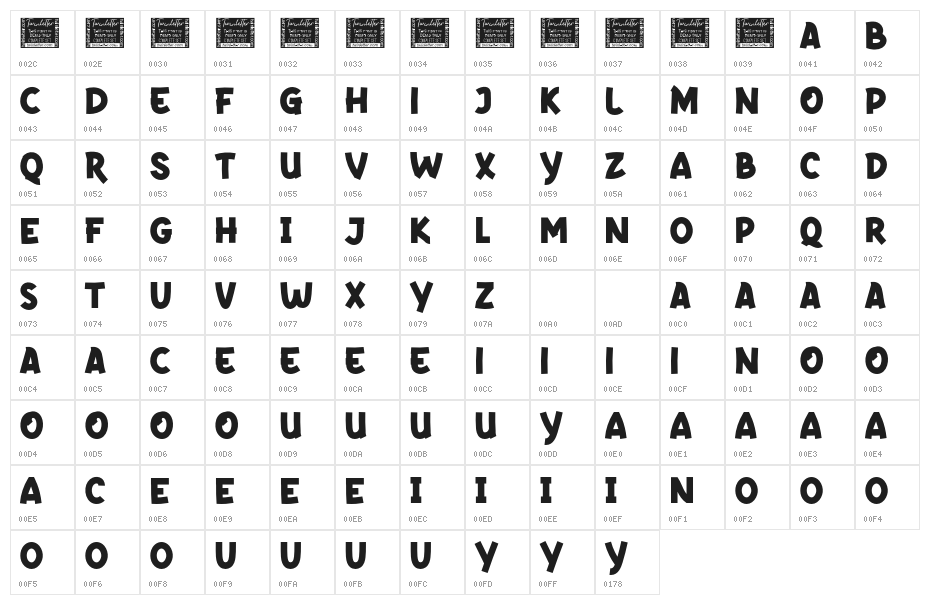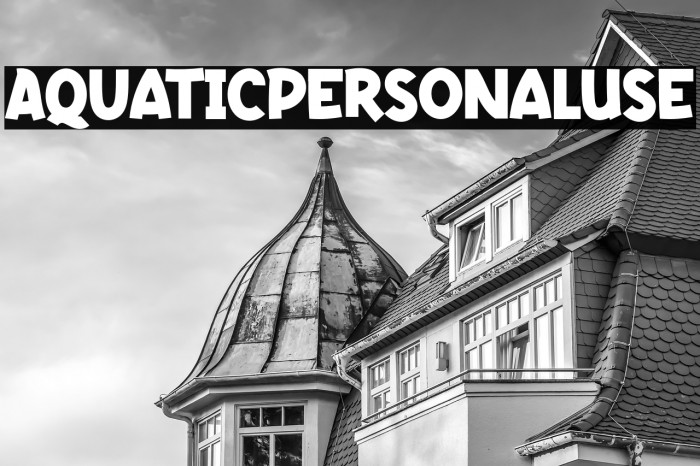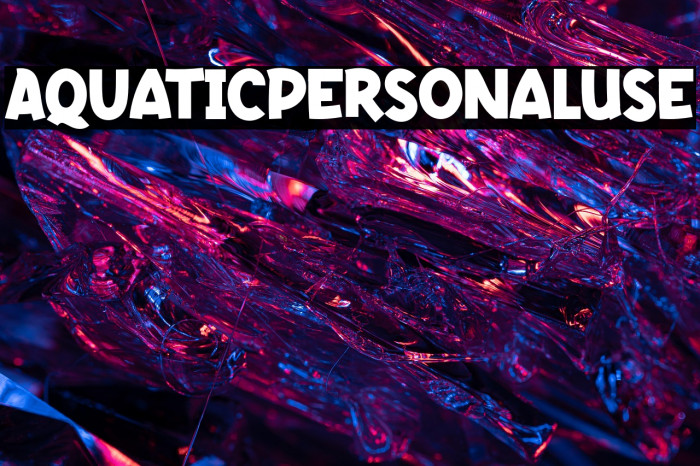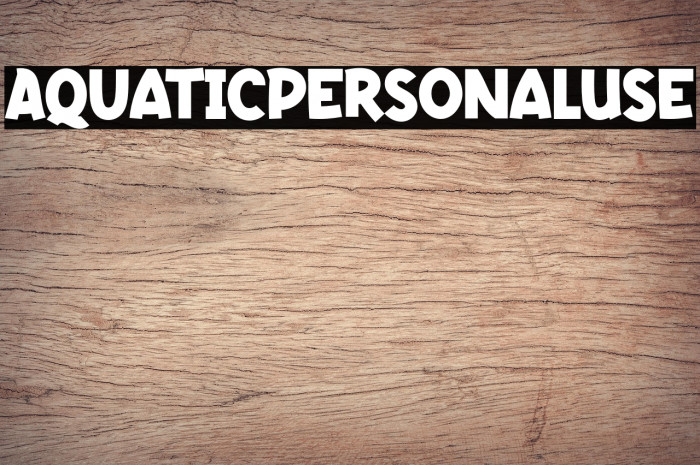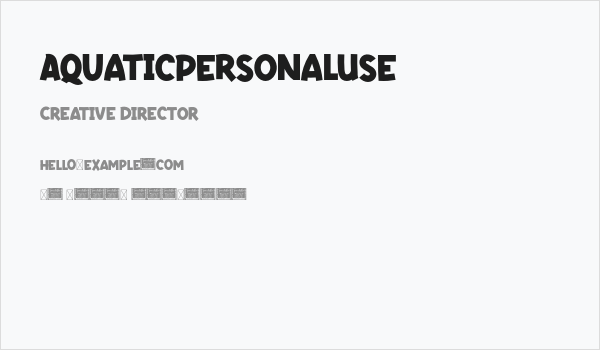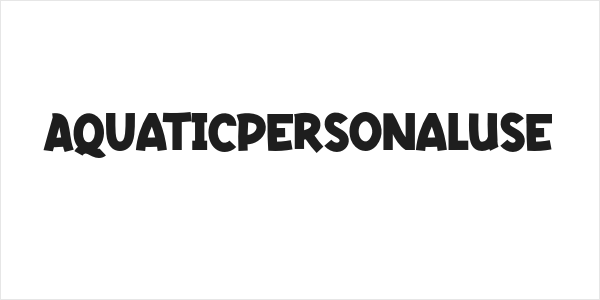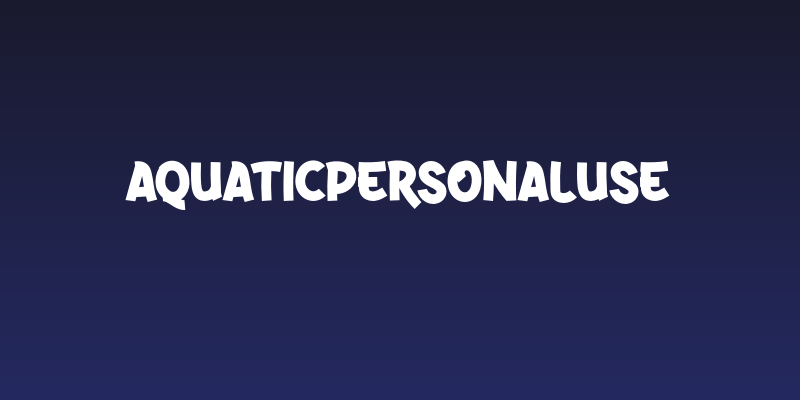
AquaticPersonalUse Font
AquaticPersonalUse Description
This font features bold, playful characters with a distinctively whimsical style. The uppercase letters are robust and slightly irregular, giving a hand-drawn appearance that adds a touch of fun and creativity. The characters have a consistent thickness, contributing to a cohesive look across all letters. The font's unique style is characterized by its slightly exaggerated curves and angles, making it stand out in any design. It is ideal for projects that require a lively and engaging typeface, such as children's books, playful branding, or creative posters. The font maintains a consistent weight throughout, ensuring readability while still offering a dynamic visual impact.
| Proposed Projects | Ideal for children's books, playful branding, creative posters, and any project needing a lively typeface. |